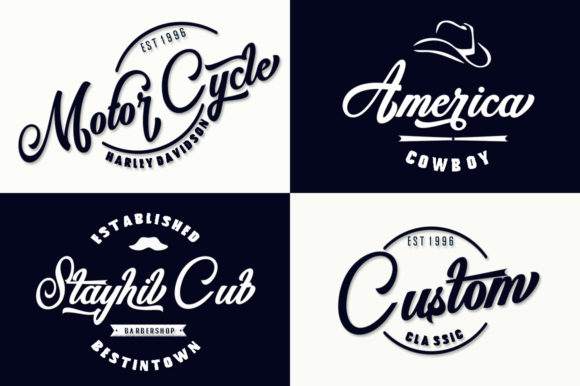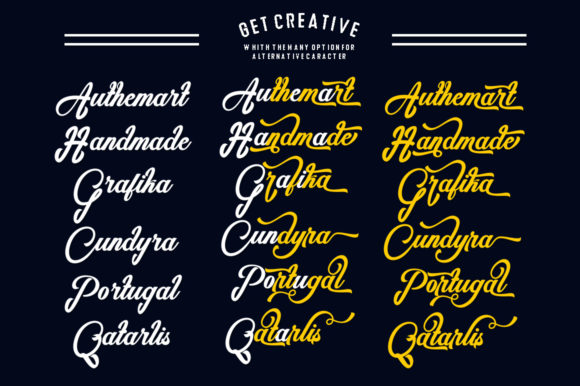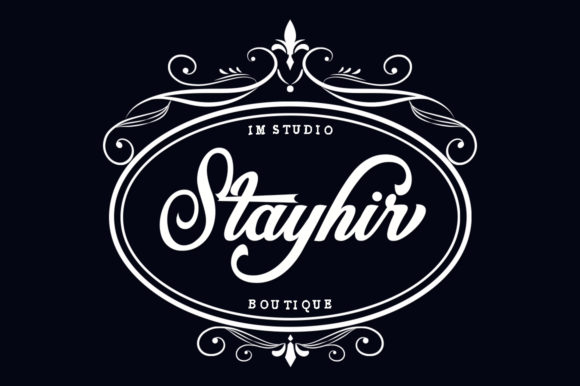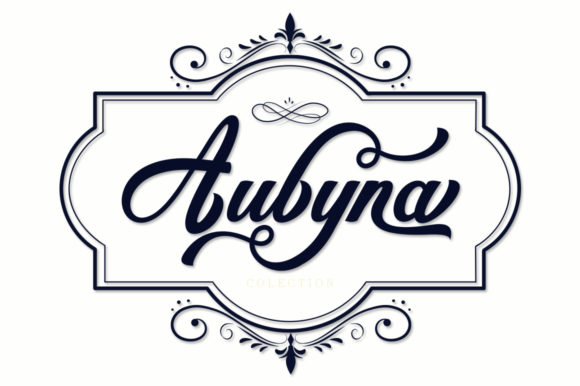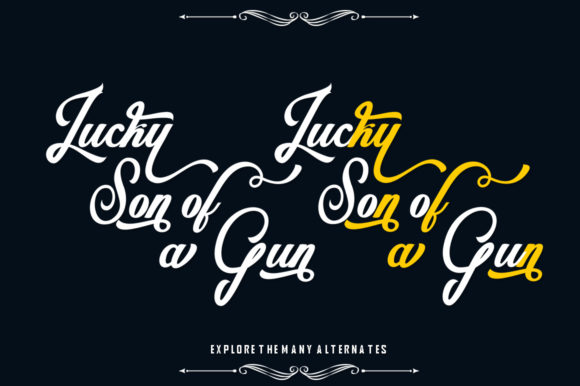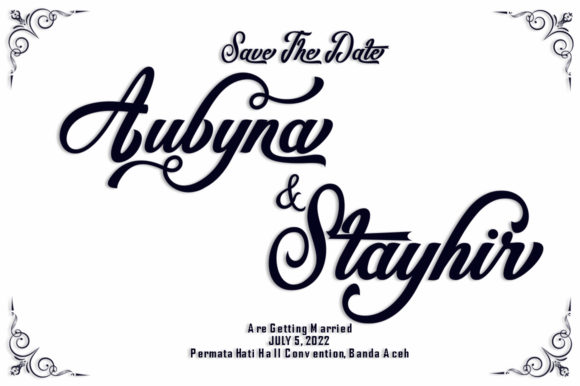
Staytion Script Font
About Staytion Script Font
Staytion Script is a modern calligraphy typeface. This font is casual and beautiful with swashes and flourishes.